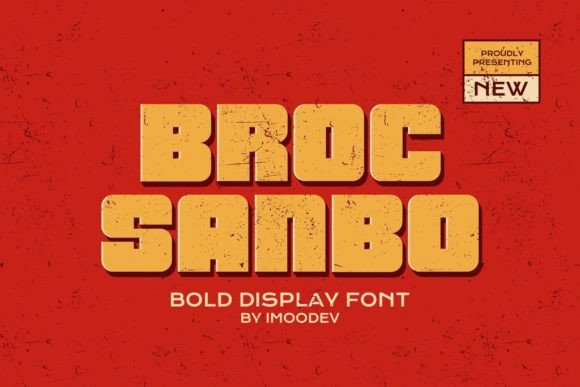
Dive into the realm of Broc Sanbo, a display font that radiates boldness and coolness, adding an instant touch of charisma to your creative endeavors. Inspired by the dynamic world of LED displays, Broc Sanbo is meticulously crafted to captivate and engage audiences with its striking presence.
Unleash your imagination and let Broc Sanbo illuminate your designs. This font is the perfect choice for projects demanding attention, whether it's eye-catching headlines, captivating posters, or vibrant social media graphics. Its bold, confident strokes command attention, leaving an unforgettable impact on viewers.
With Broc Sanbo at your disposal, you'll discover a world of possibilities. Its unique character empowers you to convey messages with impact, whether promoting products, announcing events, or sharing inspiring quotes. Let Broc Sanbo be your visual ally, helping you craft designs that resonate and connect with audiences.
As you embark on design journeys with Broc Sanbo, you'll find yourself immersed in a world of creativity and expression. This font is not just a collection of letters but a gateway to unlocking your inner artist. It invites you to push boundaries, experiment with colors, and create designs that are uniquely yours.
Embrace the allure of Broc Sanbo and watch your designs transform into captivating masterpieces. Its bold, confident strokes will elevate your projects to new heights, leaving a lasting impression on those who encounter them. Unleash the power of Broc Sanbo today and embark on a creative expedition like never before.